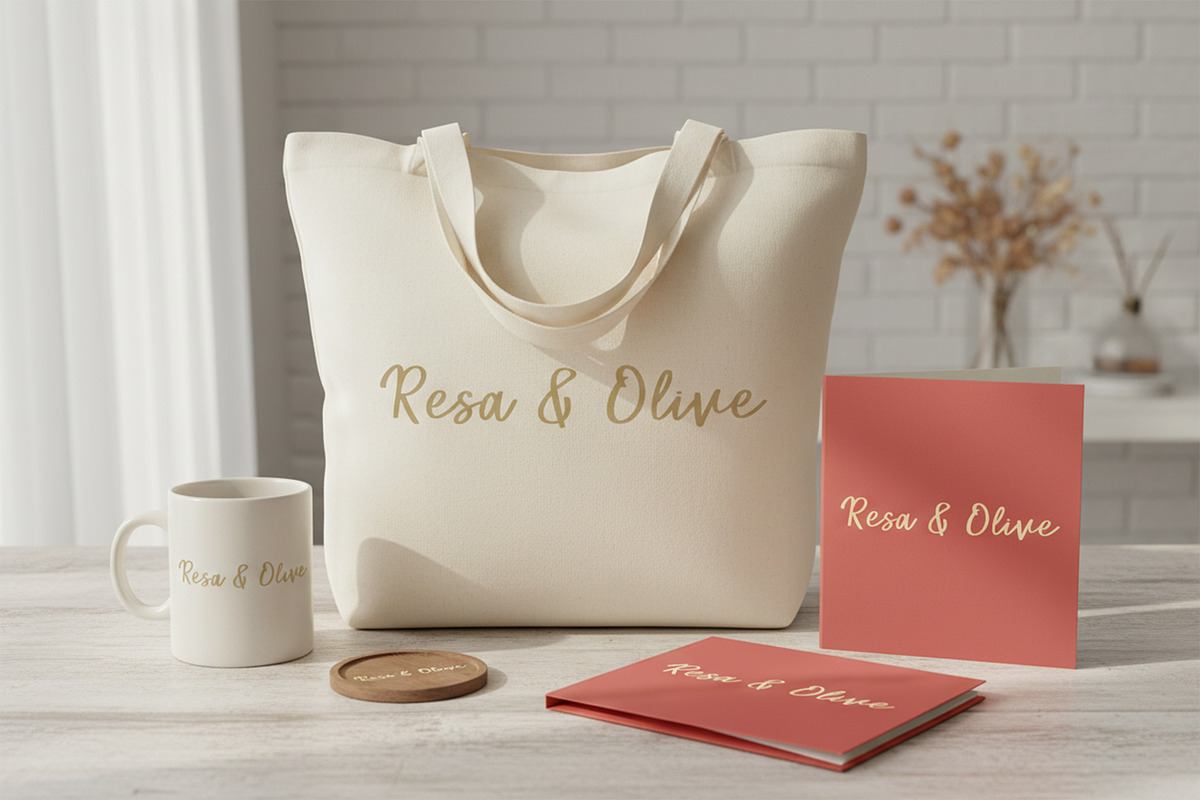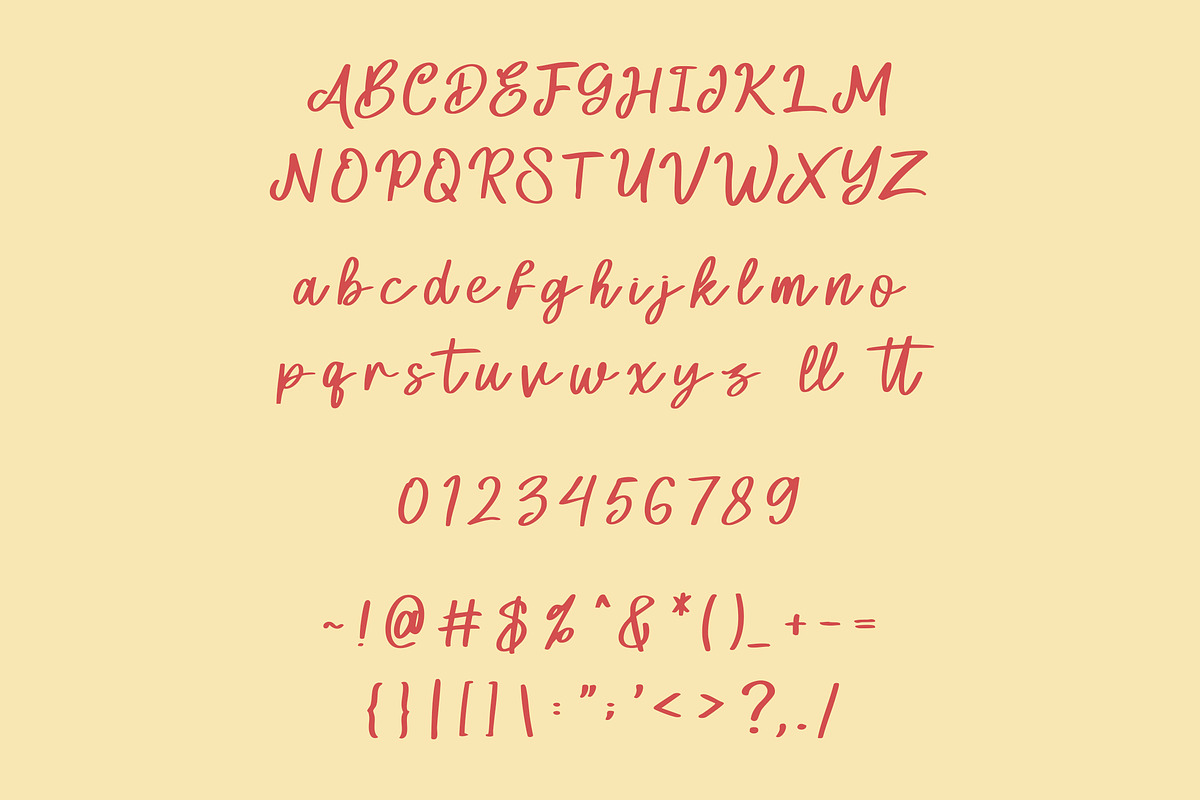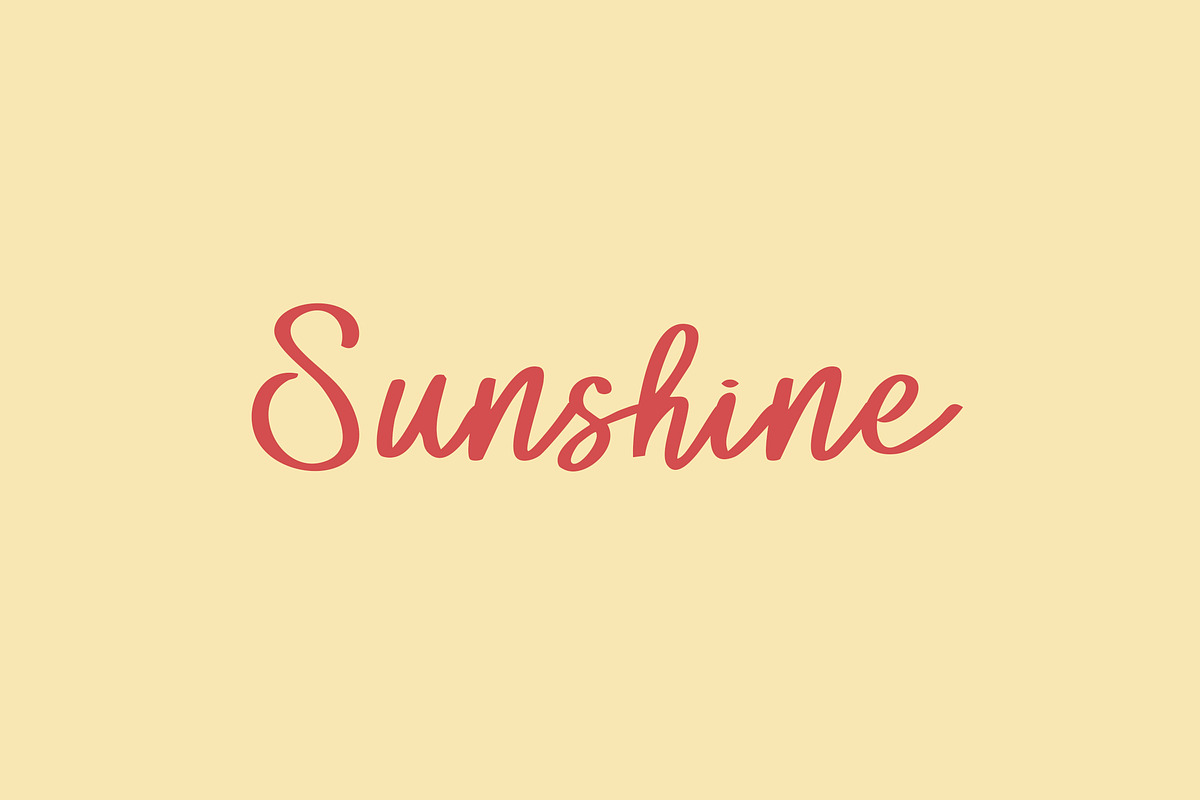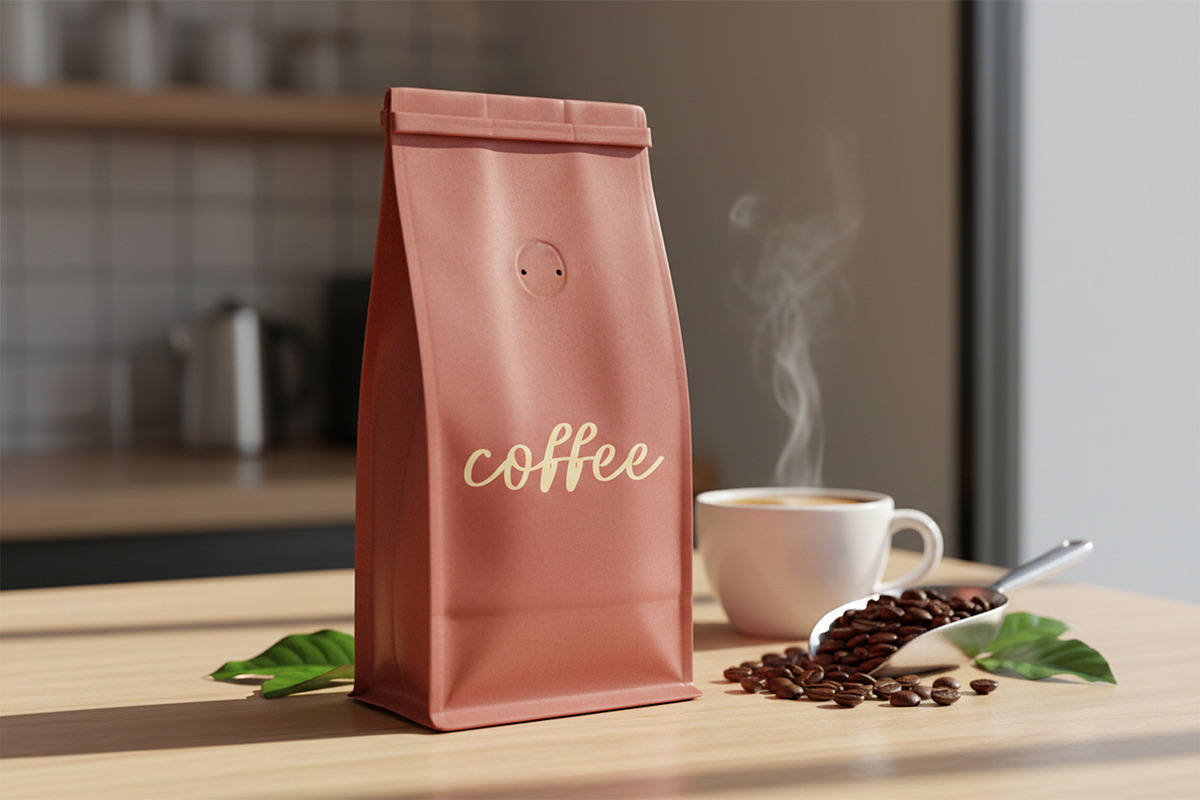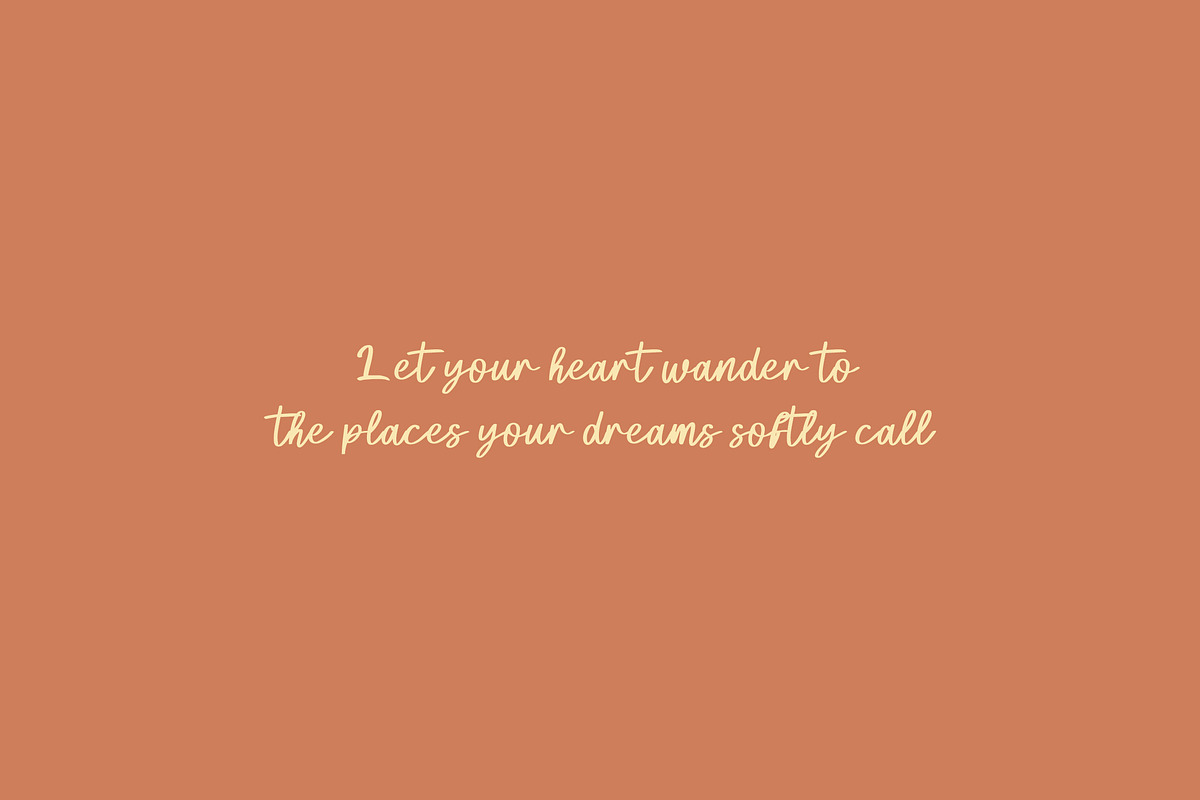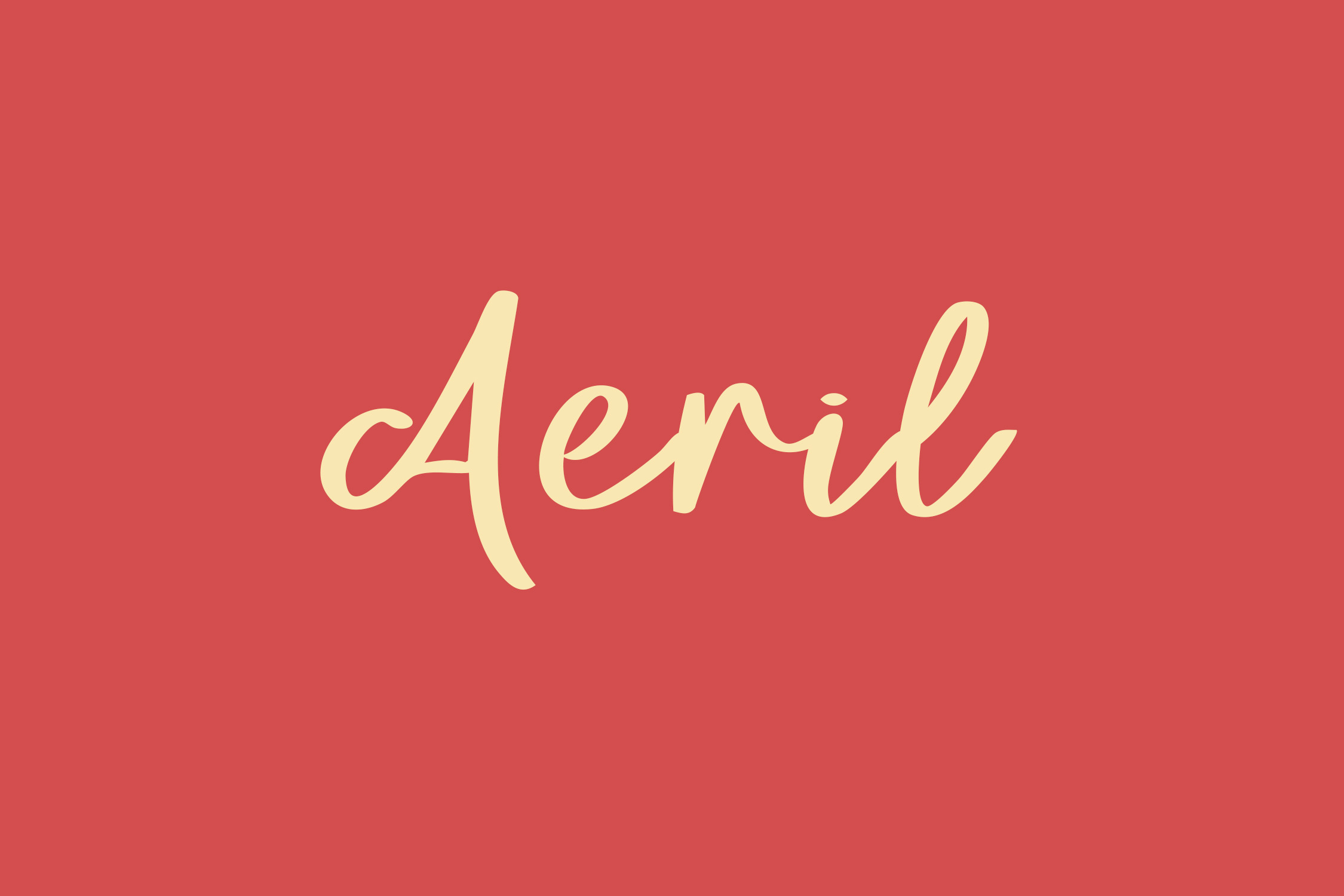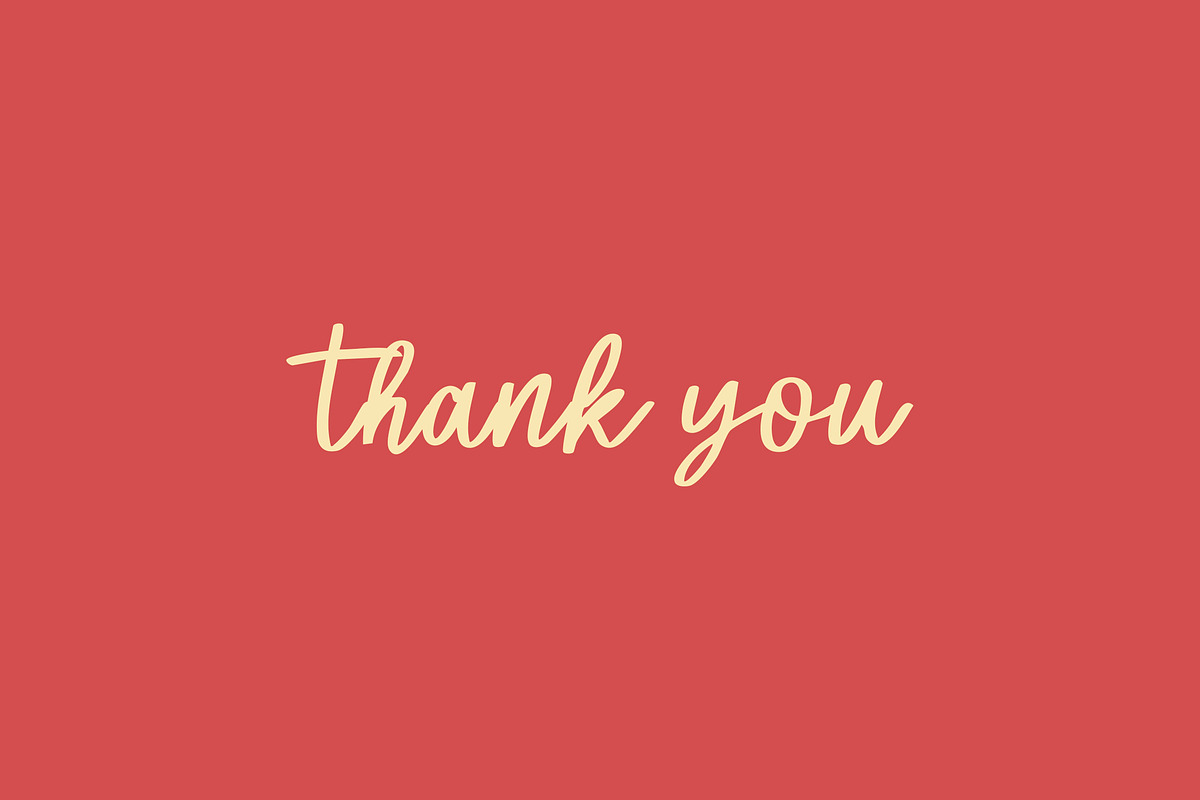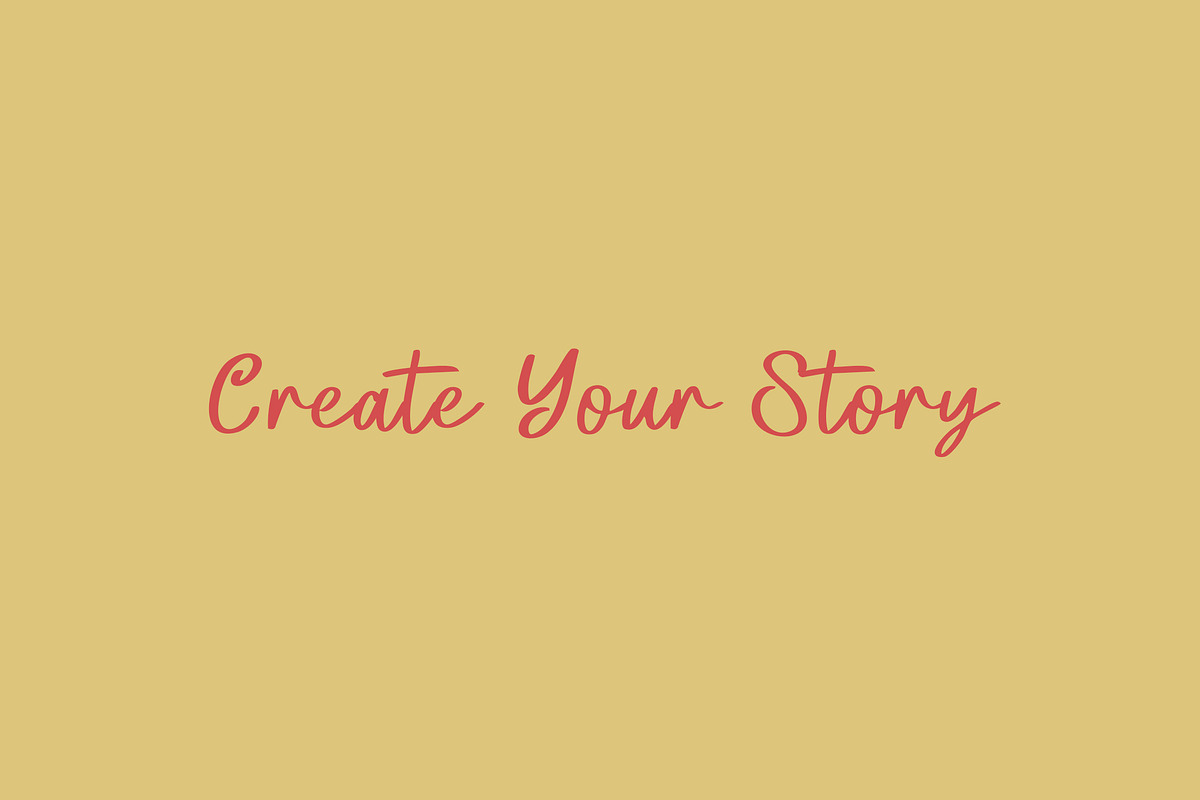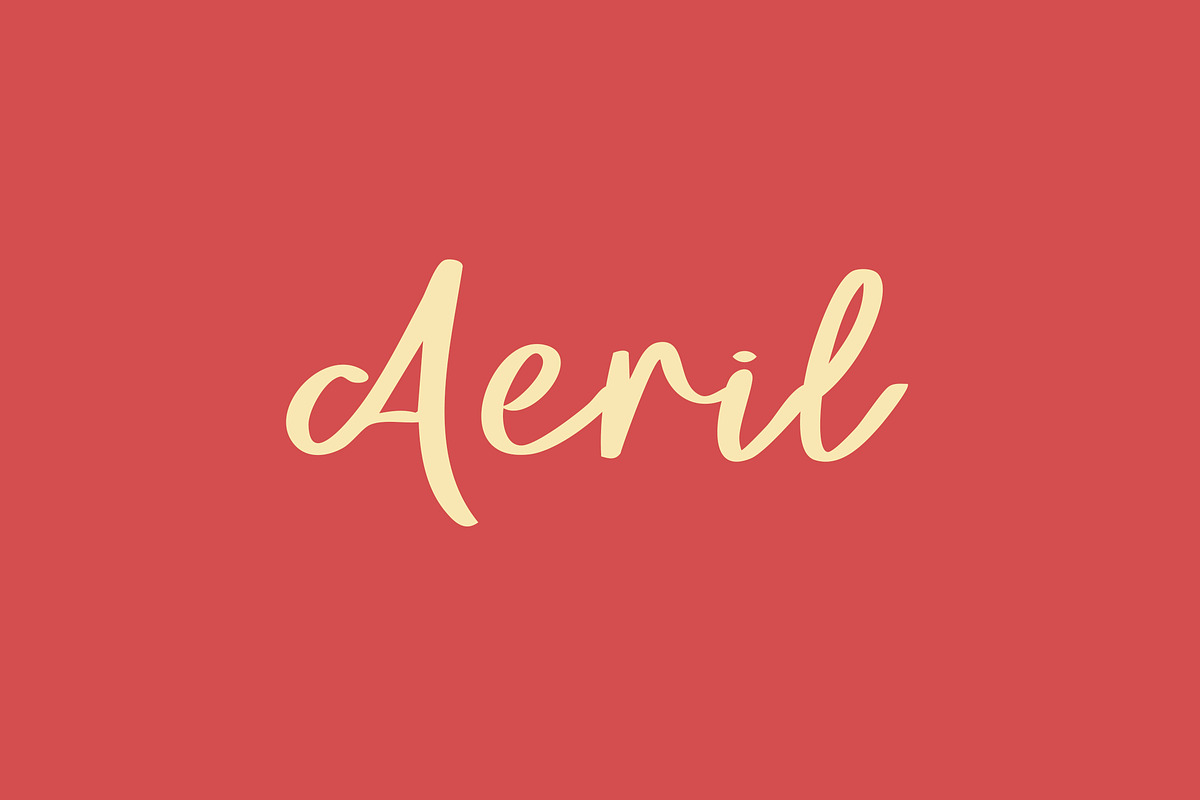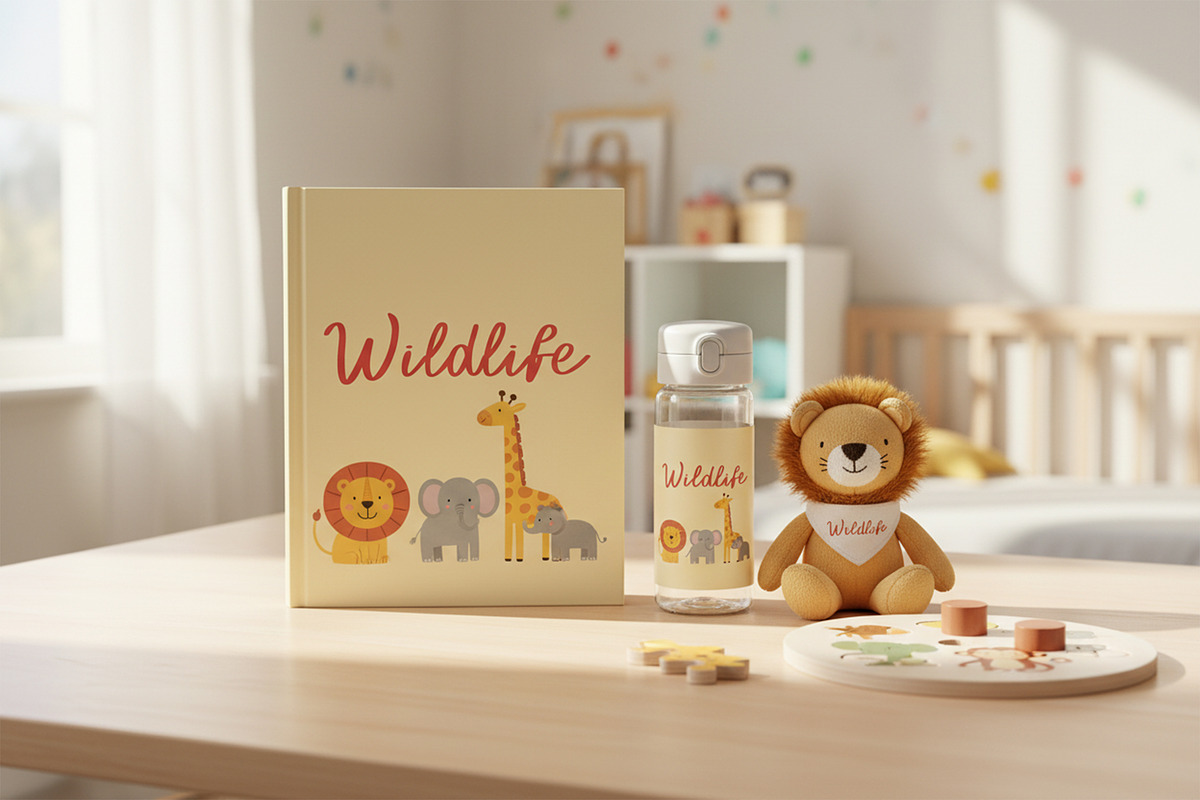
Aeril Script Font
Aeril Script Font is a smooth, elegant script typeface designed to bring a touch of sophistication to your creative projects. Its flowing curves, gentle strokes, and natural handwritten rhythm make it perfect for branding, wedding invitations, product packaging, quotes, logos, and feminine-themed designs. Aeril combines readability with graceful charm, giving every layout a refined and stylish look without losing its warm, personal feel. Whether you’re designing for clients or elevating your own brand, Aeril offers a timeless script style that enhances any visual concept.